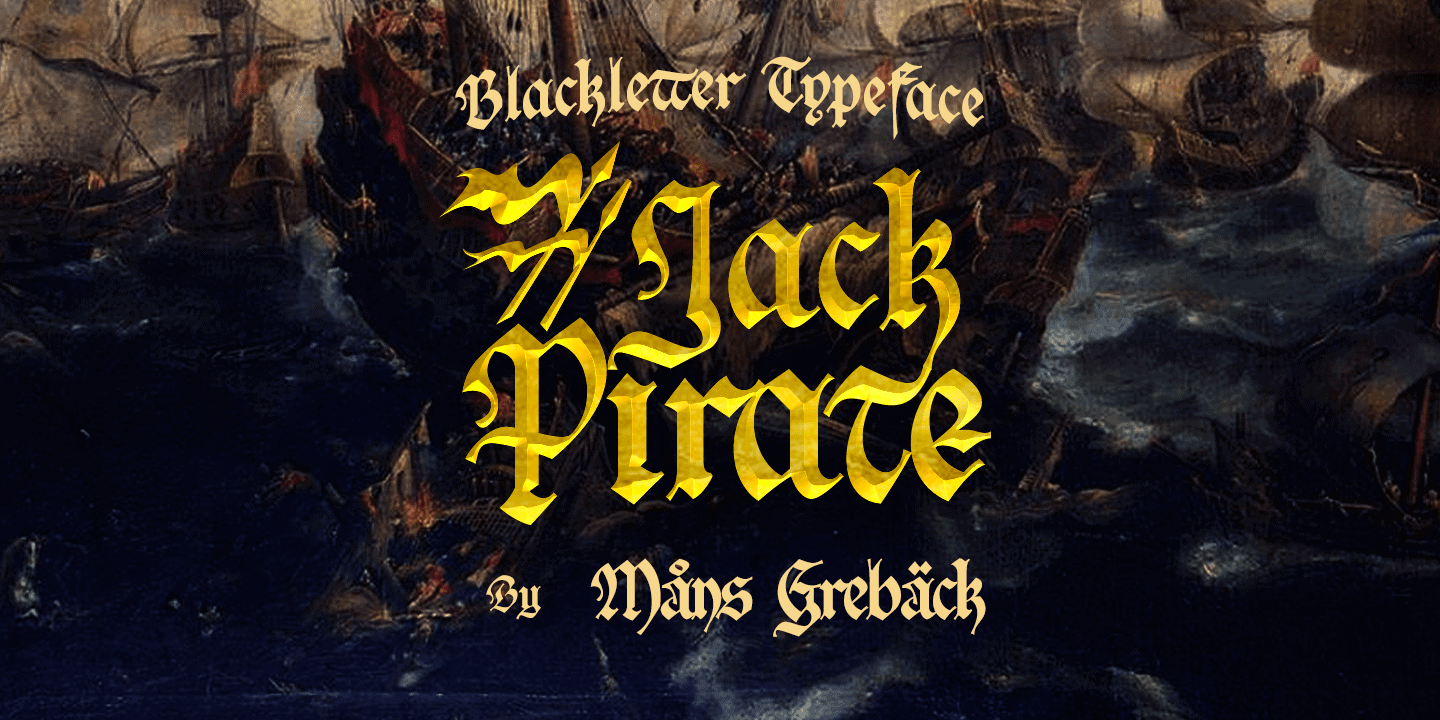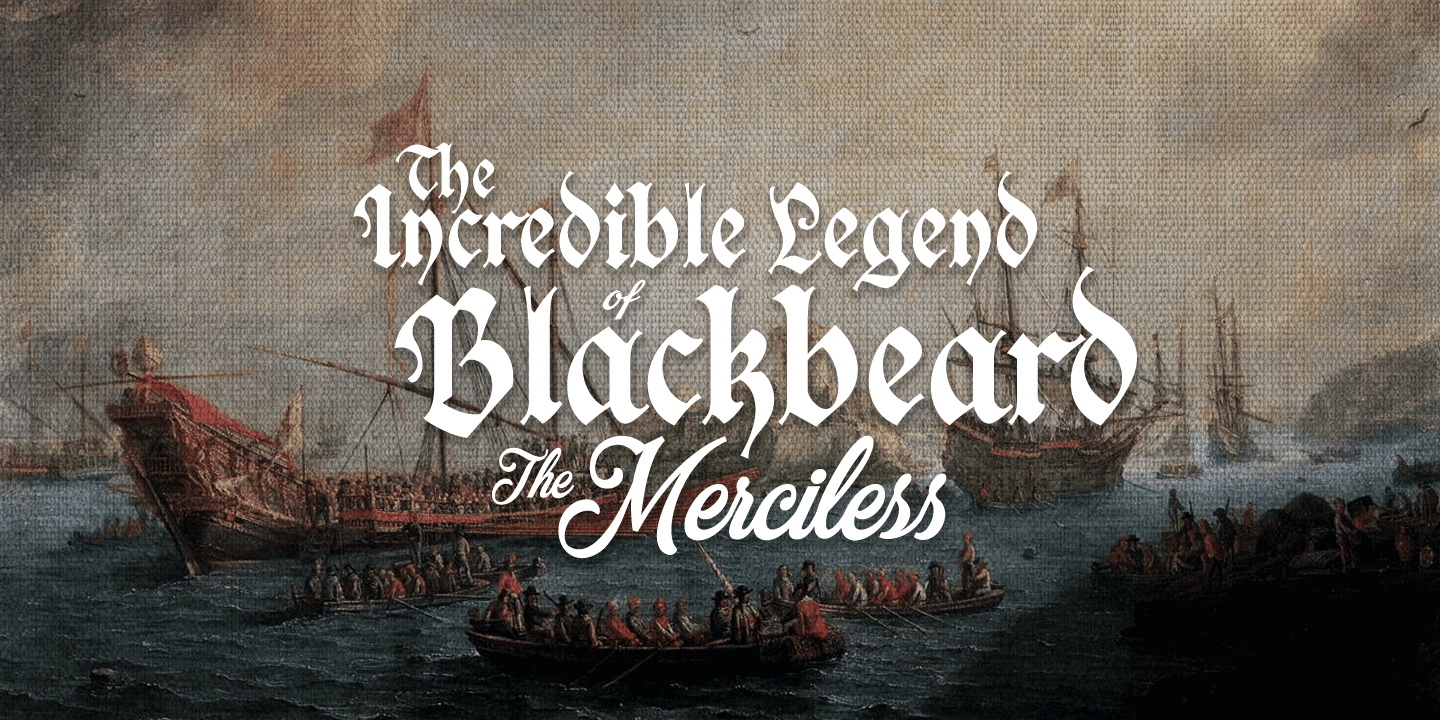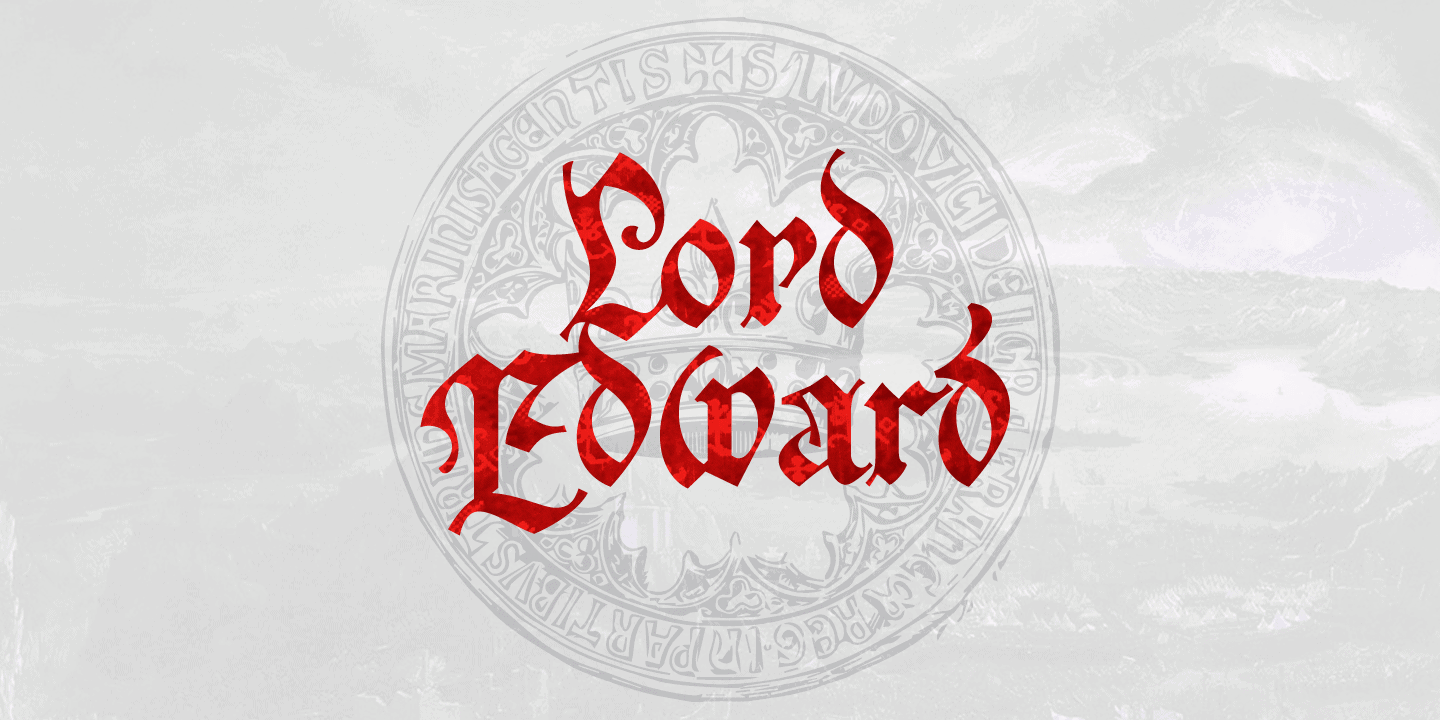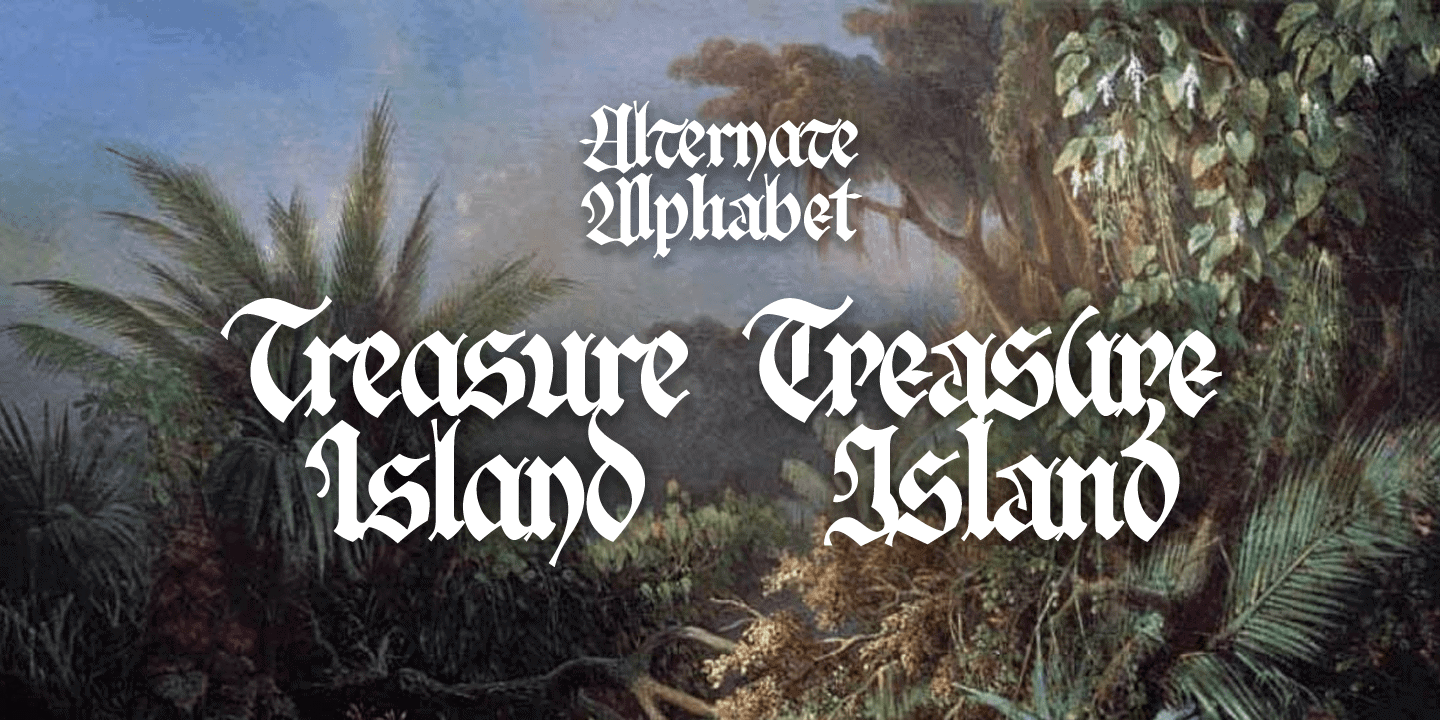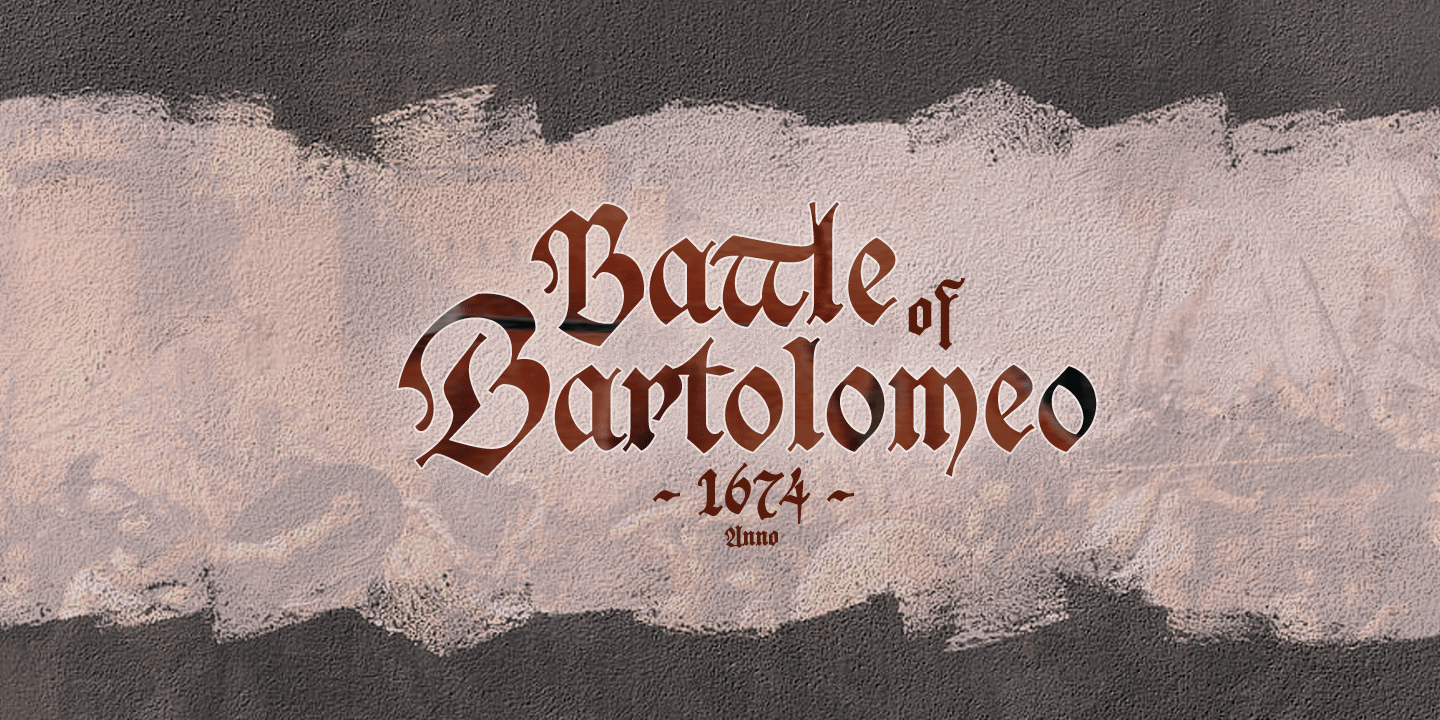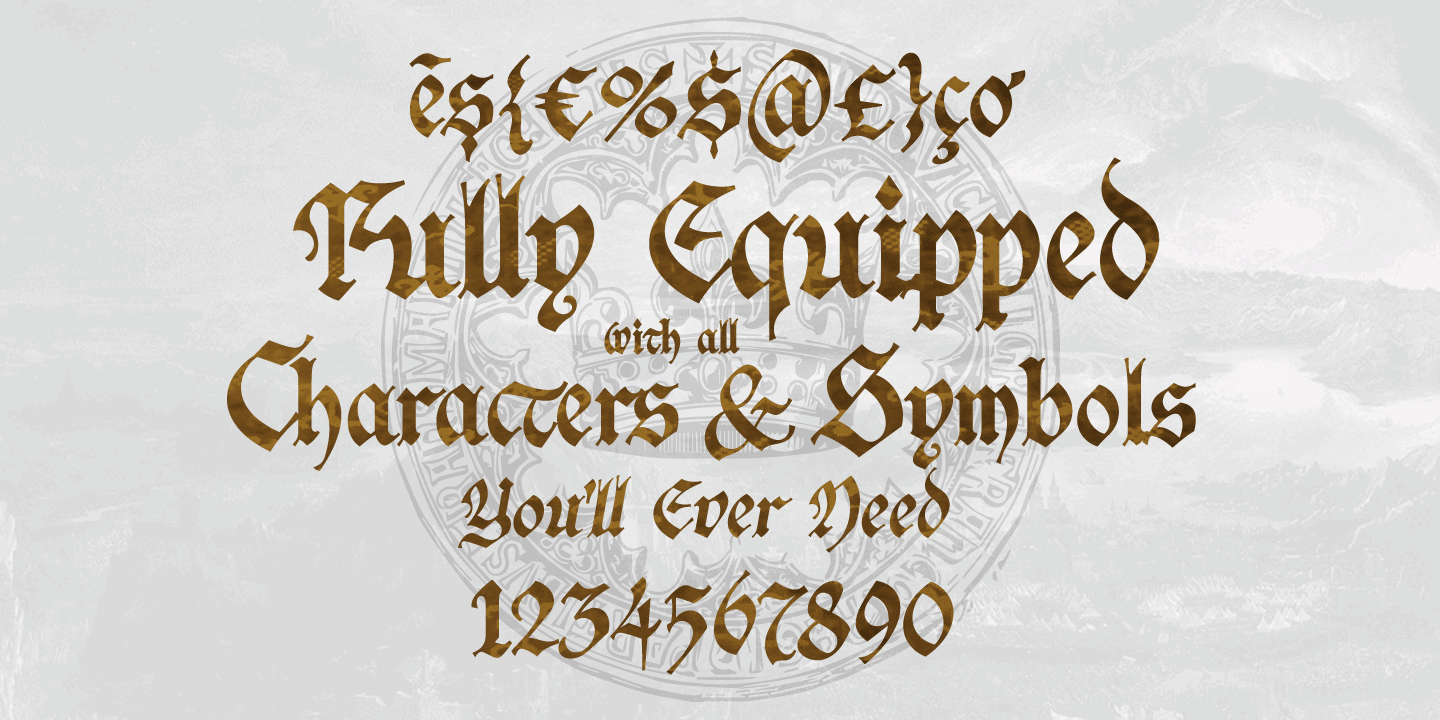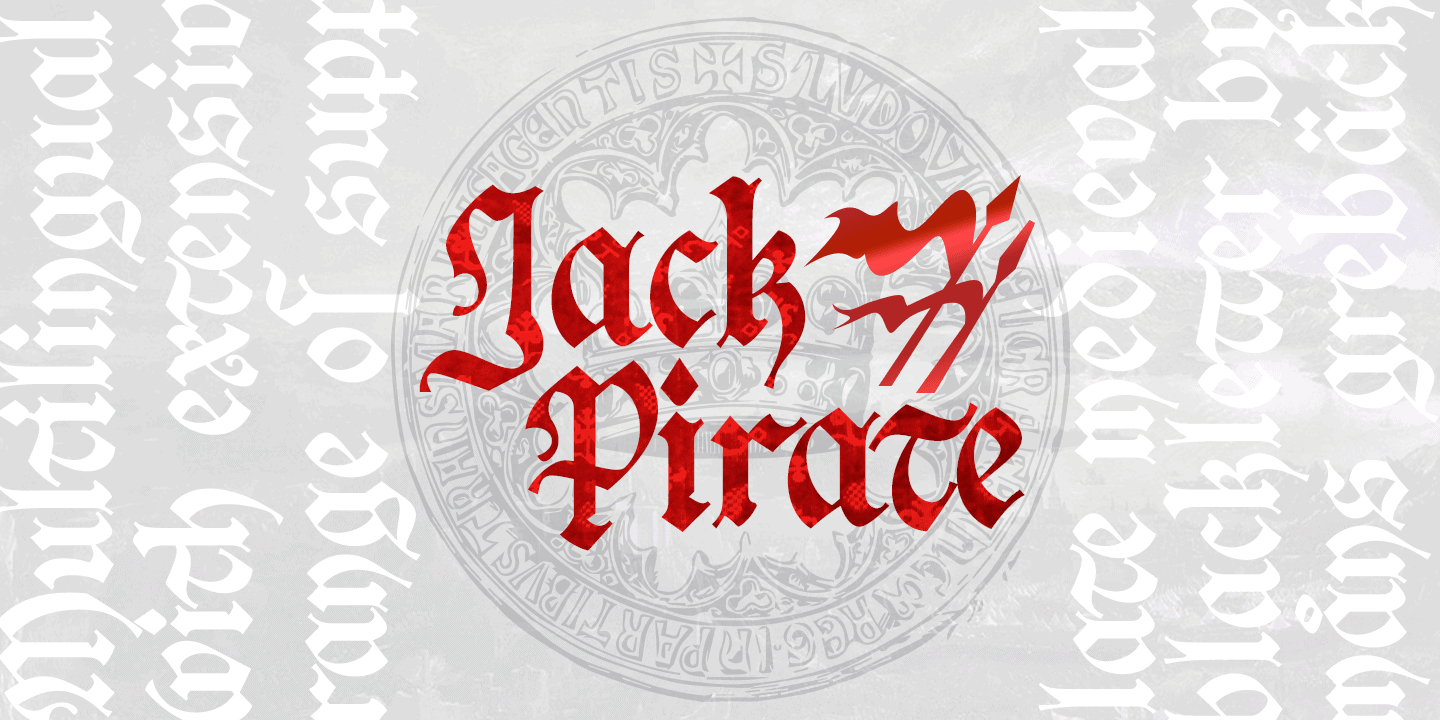
Jack Pirate
Jack Pirate is a hand-drawn blackletter typeface, created by Måns Grebäck during 2019.
It is a genuine medieval font with fraktur-inspired letter forms, Gothic decorations and a mysterious undertone. Use it for projects relating to the Middle Ages, or in modern contexts such as tattoo or storefront graphics.
It contains an alternate alphabet, to be used as a stand-alone font or to give decoration and variation to the regular style. The font is multilingual and has an extensive range of glyphs; it supports all Latin-based European languages, contains numbers as well as all symbols and characters you’ll ever need.